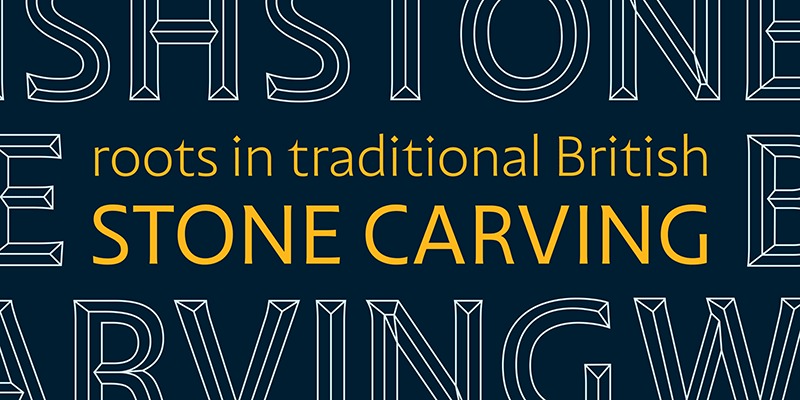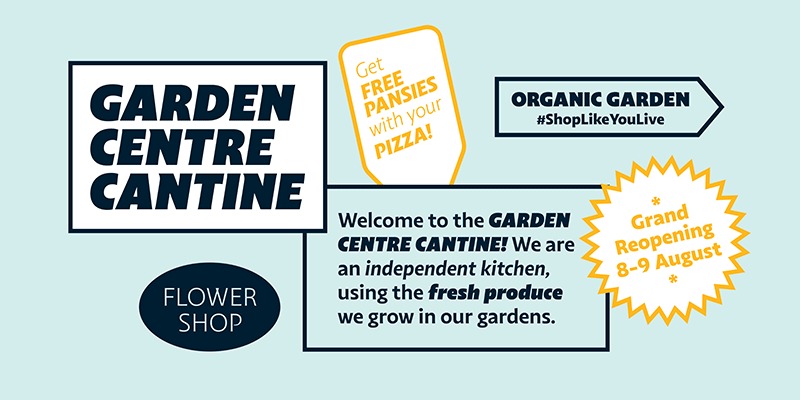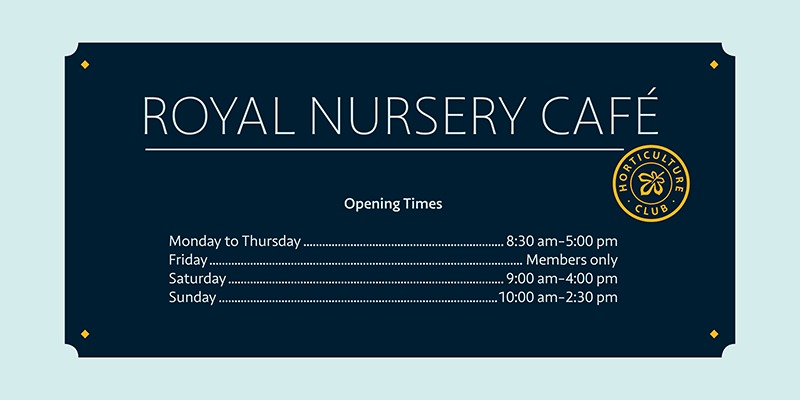
Highgate Font Family
Highgate Sans Serif Font
It’s a neo-grotesque modern font that puts clarity and simplicity at the top. This is a sans serif font which draws its inspiration from traditional British stone carving, but transforms these roots into a functional and contemporary typeface, ready to support any message in any medium.
Highgate has open letter shapes, with distinctive and varying proportions, making it highly legible and giving a friendly, welcoming, and sophisticated expression. With the inclusion of key alternate characters, including diamond-shaped dots, and a set of illustrative icons, that expression can be pushed even further.
The family consists of nine weights, from Hairline to Black, with matching slanted italics. The mid-weights prioritize functionality, making them ideal as workhorse reading fonts, while the extreme weights work best as expressive display fonts for attention-grabbing headlines.